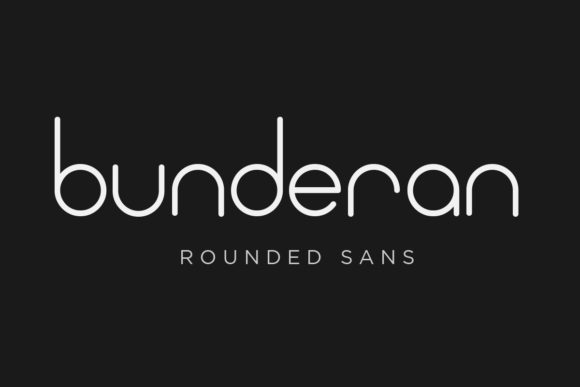
The Bunderan Font: A Simple yet Powerful Design Tool
I’ll never forget the design project that led me to discover the Bunderan font. I was working on a logo design for a new client, and I was struggling to find the perfect font. The client wanted something simple, yet elegant, and I was determined to deliver. That’s when I stumbled upon Bunderan, a simple sans serif typeface with rounded edges that caught my eye. In this article, I’ll share my experience with Bunderan, its features, and how to make the most of it in your designs.
An Honest Review of Bunderan Font
What I Love About Bunderan ✨
• ✅ Simple and clean design: Bunderan’s rounded edges give it a smooth and elegant look that’s perfect for logos, titles, and small amounts of text.
• ✅ Versatile: Bunderan works well in various design contexts, from digital to print.
• ✅ Easy to read: The font’s simplicity makes it easy to read, even at small sizes.
While Bunderan is an excellent font, it’s not perfect. Here are a few things to keep in mind:
• 🤔 Limited character set: Bunderan might not have all the characters you need, especially for non-English languages.
• ⚠️ Not ideal for body text: While Bunderan is easy to read, it’s not designed for long blocks of text. Stick to titles, subtitles, and short paragraphs.
The Story Behind Bunderan Font
Bunderan was designed with simplicity and elegance in mind. The font’s creator wanted to craft a typeface that would be perfect for logos, titles, and small amounts of text. Inspired by modern design trends, Bunderan features rounded edges that give it a smooth and clean look.
Q: What is Bunderan font?
A: Bunderan is a simple sans serif typeface with rounded edges, perfect for logos, titles, subtitles, and small amounts of text.